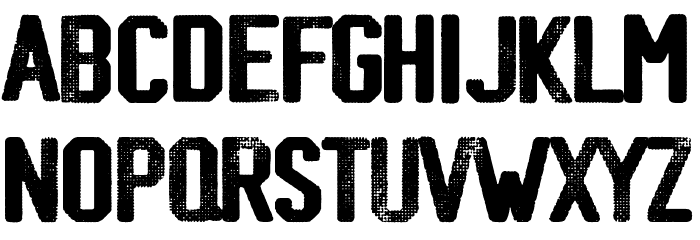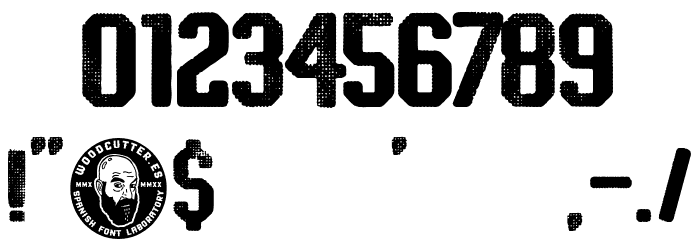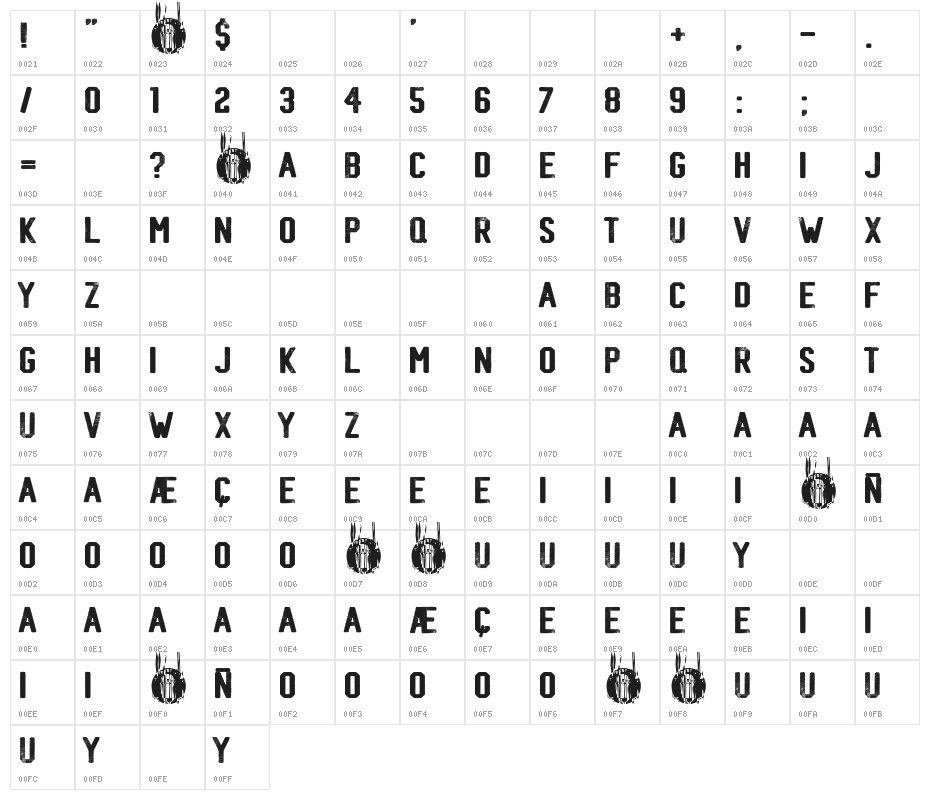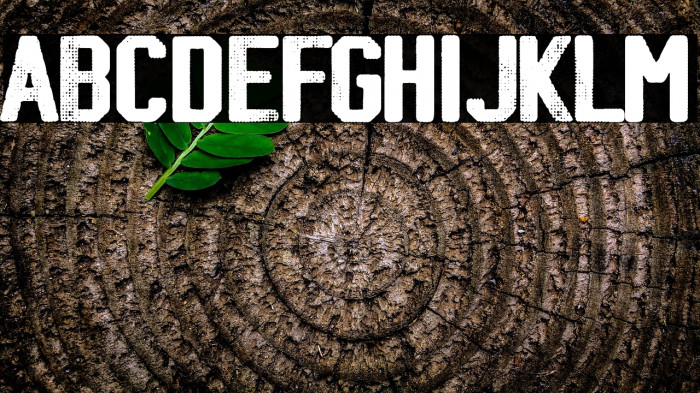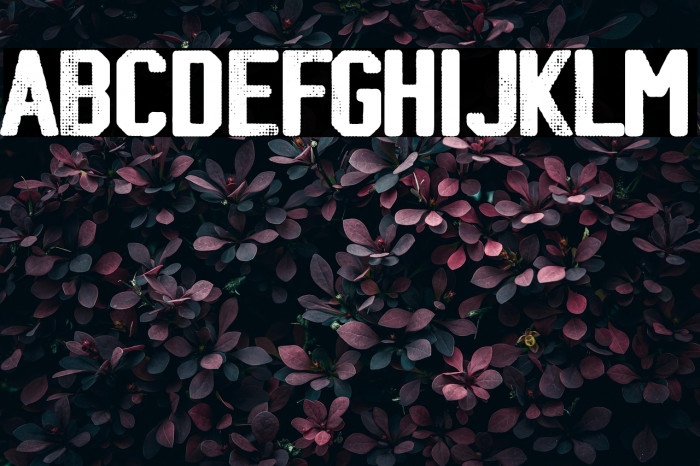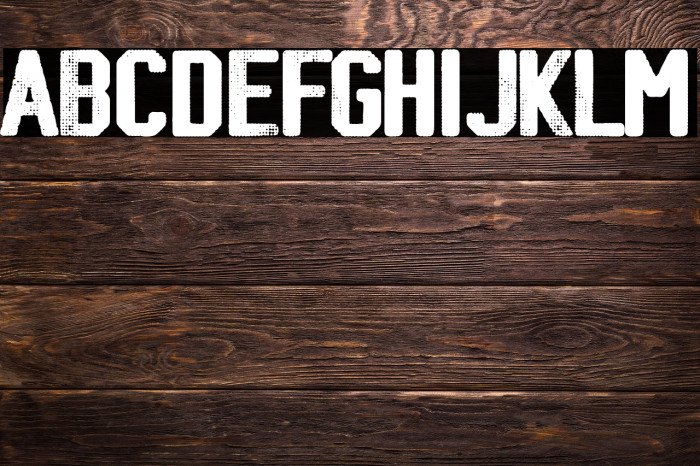
Sports Bar Font
This font features a bold, rugged style with a distressed texture that gives it a vintage, worn appearance. The characters are blocky and robust, with a uniform thickness that conveys strength and solidity. The uppercase and lowercase letters maintain a consistent height, enhancing readability while adding a touch of uniformity. The numerals and special characters follow the same design principles, ensuring a cohesive look across all text elements. The distressed effect adds character and depth, making it ideal for projects that require a rustic or industrial feel.
A bold, distressed font with a vintage, rugged appearance.
- Font: Sports Bar
- Proposed Projects: Ideal for sports-themed designs, bar signage, posters, and branding that requires a vintage or industrial look.
- Overall Style: Vintage